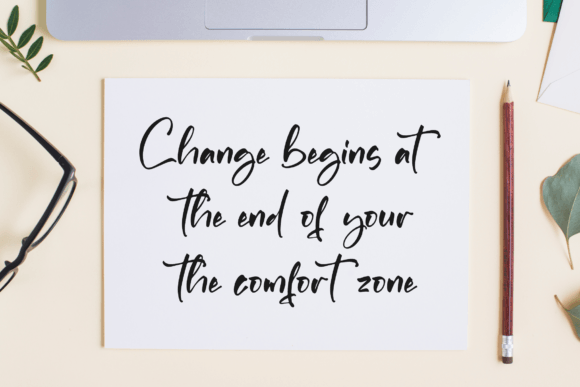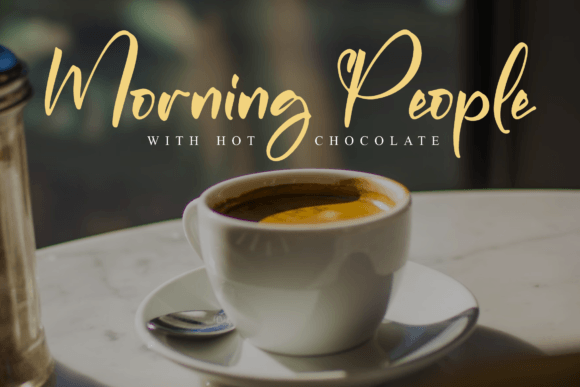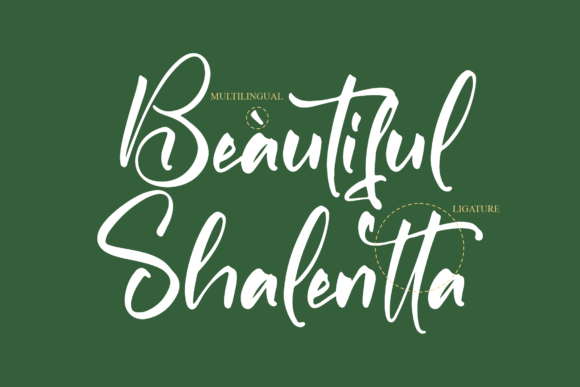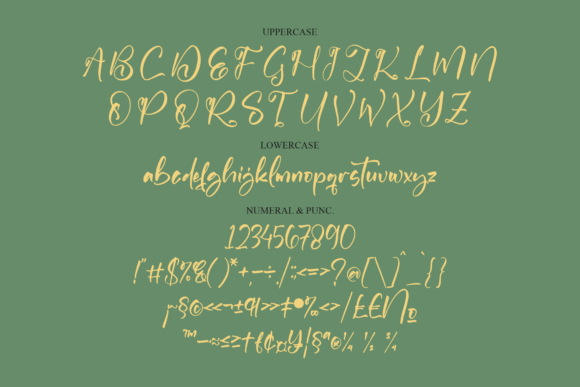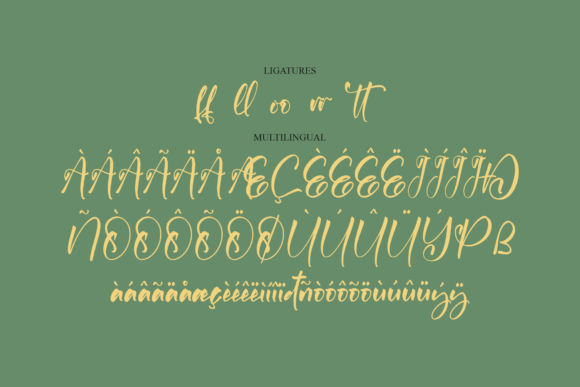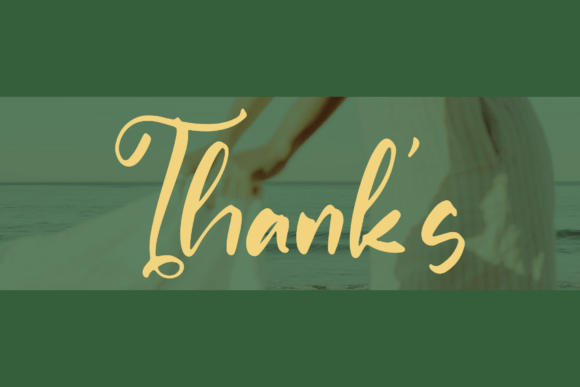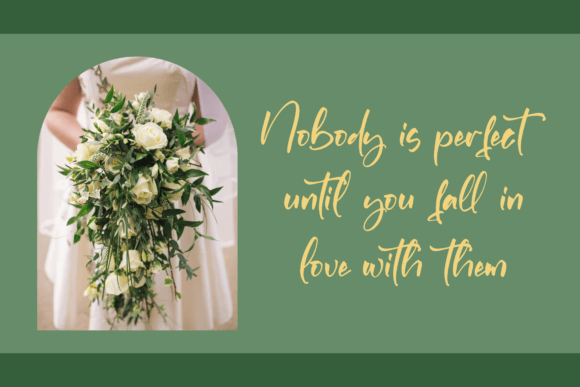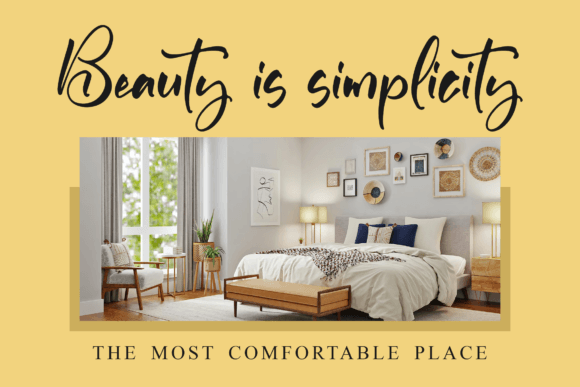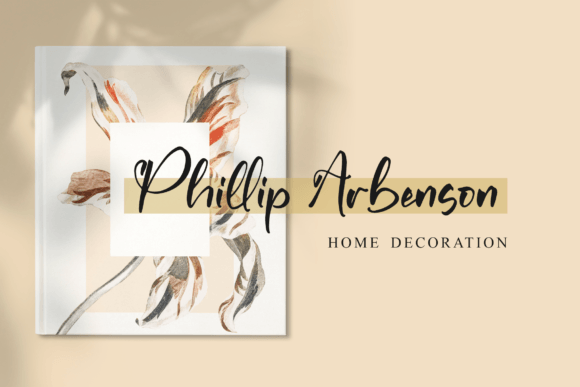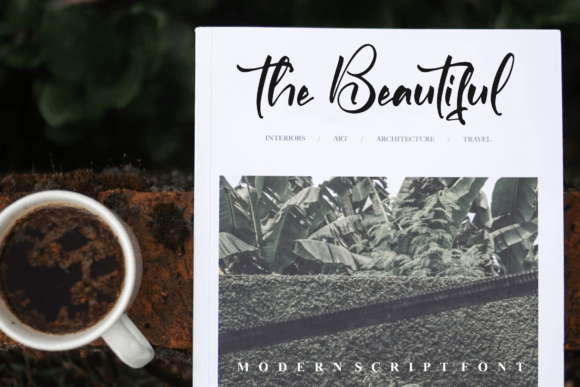
Shalentta Font
About Shalentta Font
Shalentta – Modern Script Font suitable for any projects such as logos, branding projects, homeware designs, product packaging, mugs, quotes, posters, shopping bags, t-shirts, book covers, name cards, invitation cards, greeting cards, labels, photography, watermark, special events, and all your other lovely projects that need a beautiful script taste.